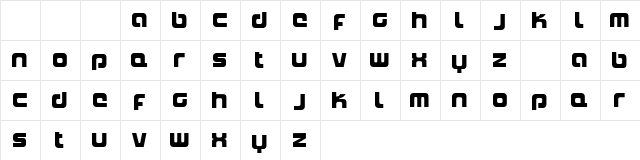
Naxalite Regular
Design Context for Naxalite Typeface
Naxalite is a composed and adaptable typeface that performs quietly and consistently across a wide range of design contexts.